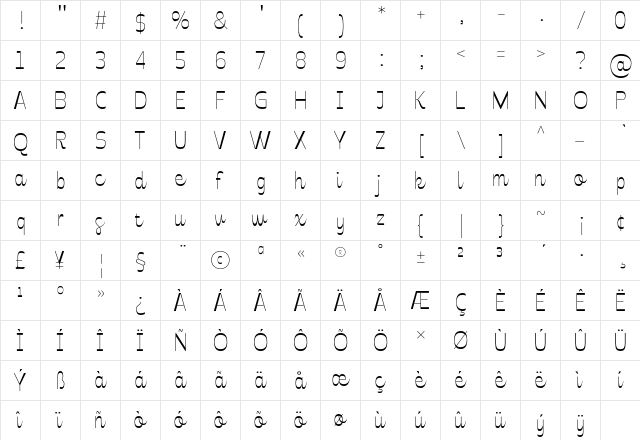
Celestine ExtraLight
| Foundry | Anugrah Pasau |
| Designer | Anugrah Pasau |
Design Context for Celestine Typeface
Celestine offers clean, dependable letterforms without strong stylistic allegiance, making it a practical choice for designers who need flexibility. Its slender proportions lend an understated elegance to any composition.